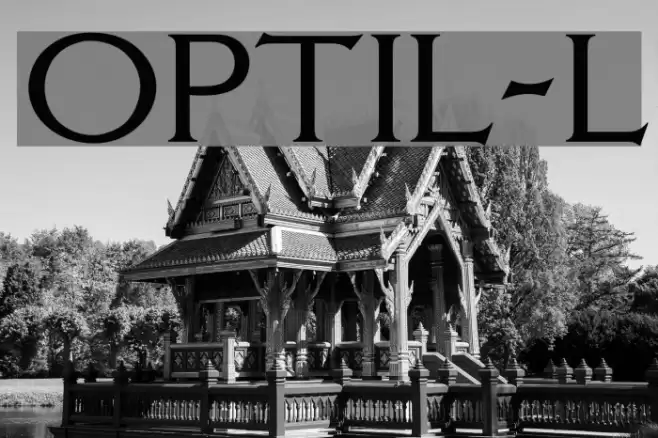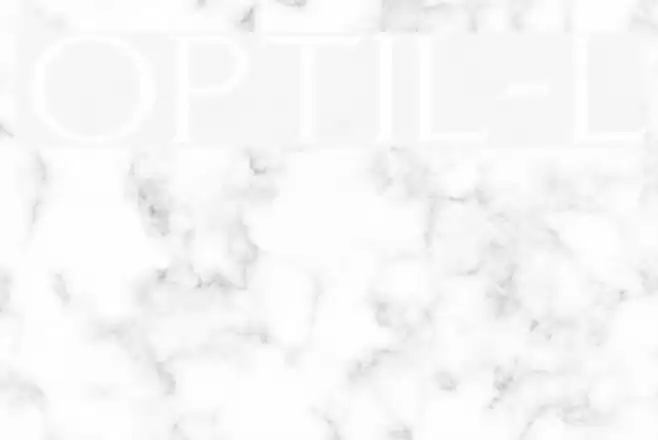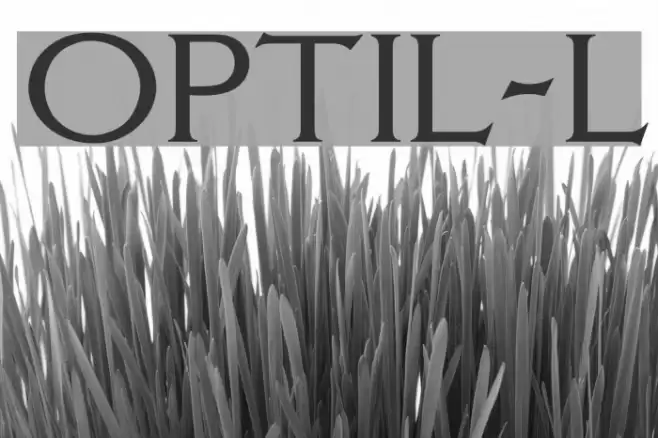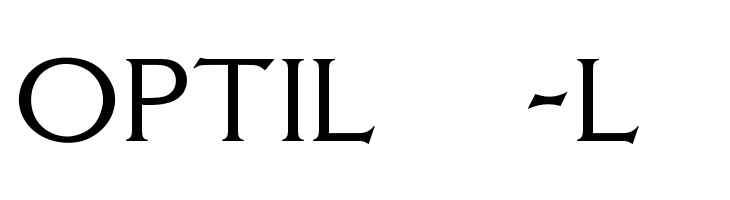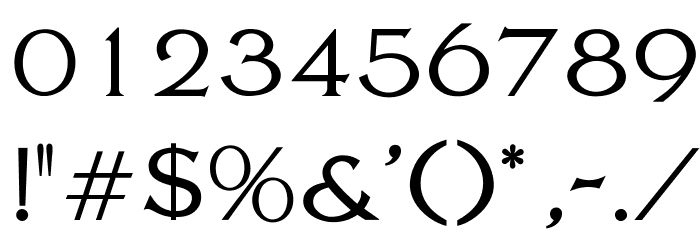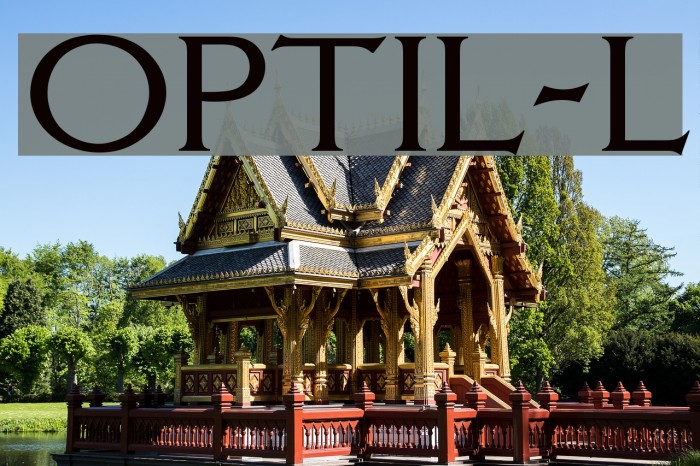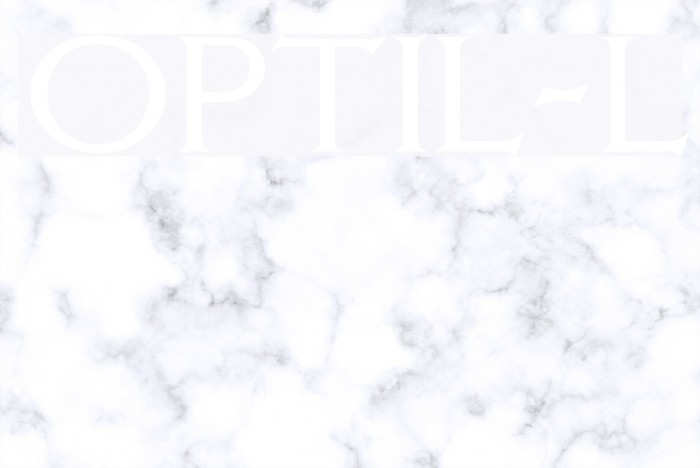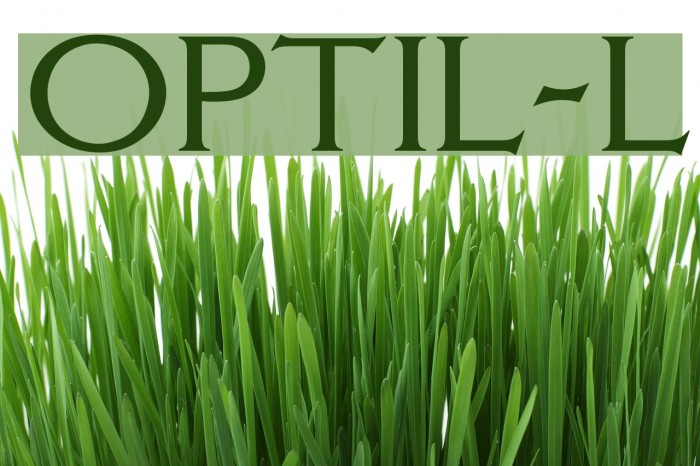
OPTILagoon-Light Font
OPTILagoon-Light Description
This font features a classic serif style with elegant, sweeping curves and sharp, defined edges. The uppercase letters exhibit a traditional formality, while the lowercase letters maintain a consistent flow with slightly rounded terminals. The numerals are distinct and balanced, complementing the overall aesthetic. Special characters are crafted with precision, adding to the font's versatility. The design is both timeless and sophisticated, making it suitable for a wide range of applications. Its light weight offers a delicate touch, enhancing readability while maintaining a refined appearance.
A classic serif font with elegant curves and sharp edges, offering a timeless and sophisticated look from Uncategorized fonts.
- Proposed Projects: Ideal for editorial design, book covers, formal invitations, and branding projects that require a touch of elegance.
- Overall Style: Classic